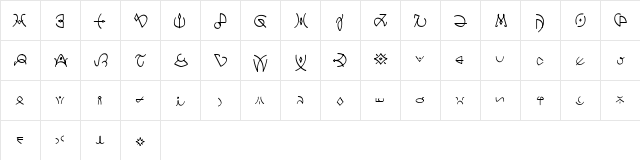
Clavat Script Regular
| Foundry | el Hechicero |
Design Context for Clavat Script Typeface
Clavat Script flows with the natural rhythm of handwritten lettering, making it ideal for designs that call for warmth and personal expression.